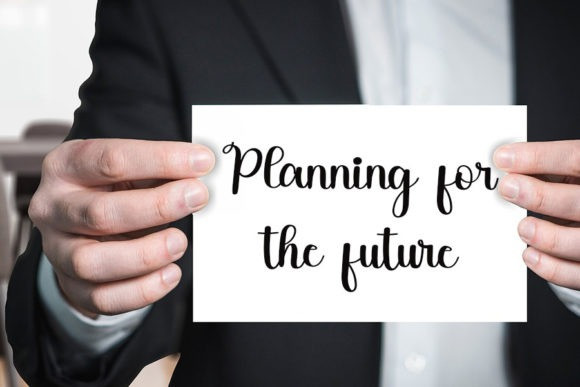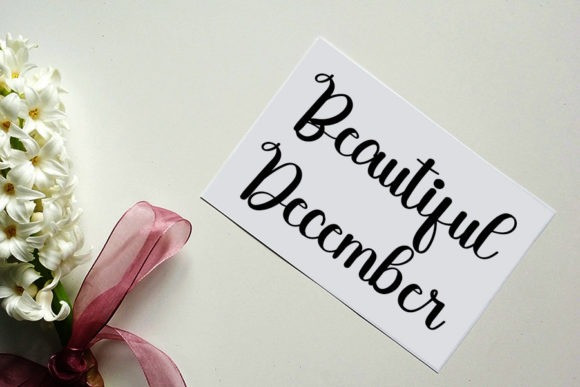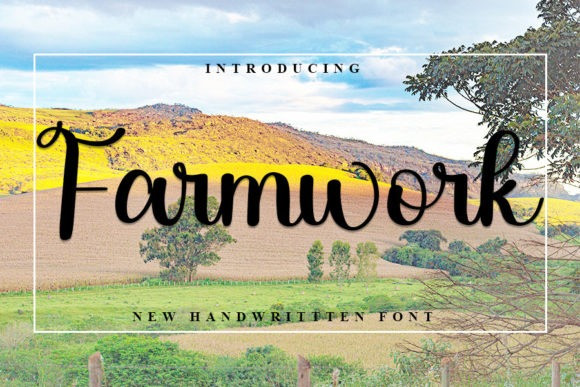
Farmwork Font
Farmwork Script Font is a magical script font carefully created with a touch of elegance. Whether you’re looking for fonts for Instagram or calligraphy scripts for DIY projects, this font will turn any creative idea into a true piece of art!